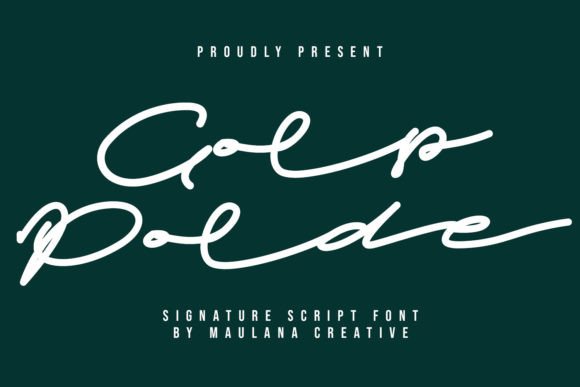
Immerse yourself in the enchanting realm of Golp Polde, a script font that exudes grace and elegance. Handcrafted with utmost care and precision, this font weaves a tapestry of emotions, transforming every word into an exquisite masterpiece.
Unleash your creativity and embark on a journey of artistic expression with Golp Polde. Whether crafting captivating logos, designing breathtaking posters, composing heartfelt invitations, or adorning your social media posts with a touch of allure, this font is your steadfast companion.
With Golp Polde as your creative ally, intricate designs flow effortlessly from your fingertips. Its meticulously crafted curves and delicate strokes evoke a sense of timeless beauty, leaving an indelible mark on the hearts of your audience.
Journey into the world of Golp Polde and discover a font that captures the essence of romance, nostalgia, and timeless elegance. Its versatility knows no bounds, adapting seamlessly to a symphony of creative endeavors.
Indulge in the artistry of Golp Polde, a font that whispers secrets of love, evokes memories of a bygone era, and ignites the imagination with limitless possibilities. Allow your creativity to soar as you transform ordinary words into extraordinary works of art.